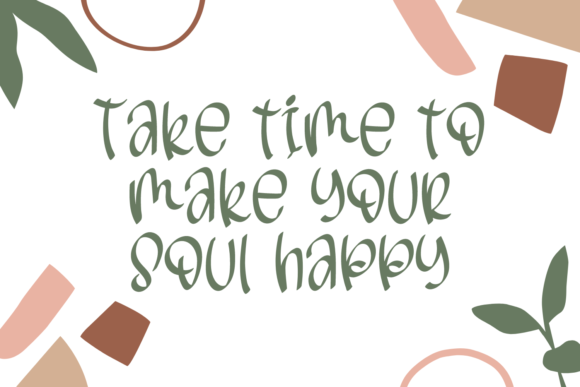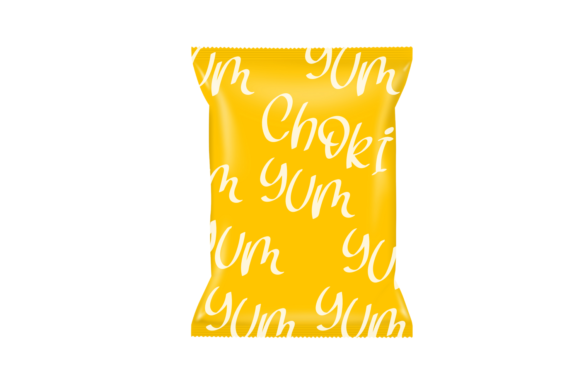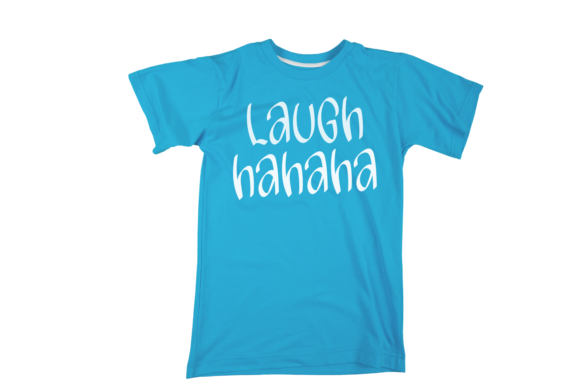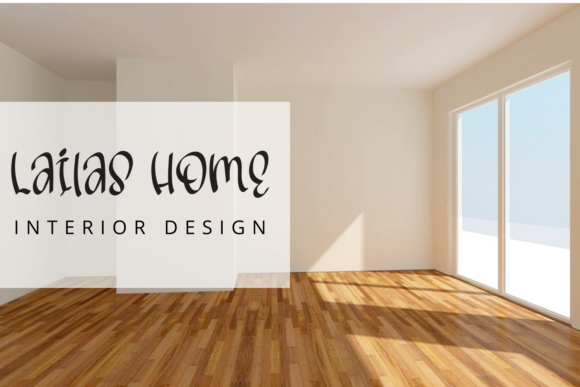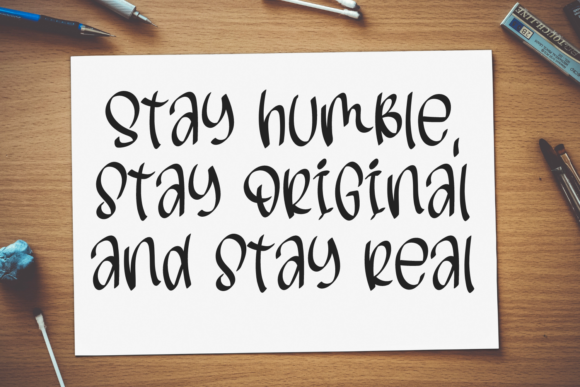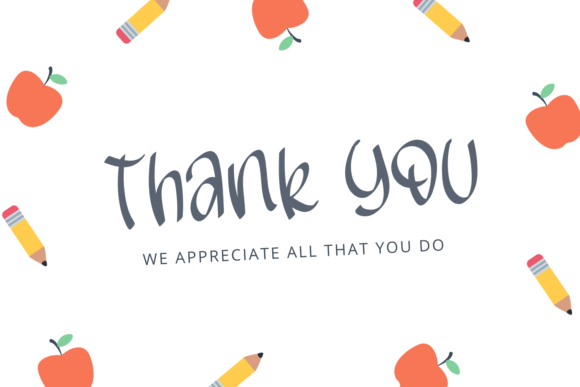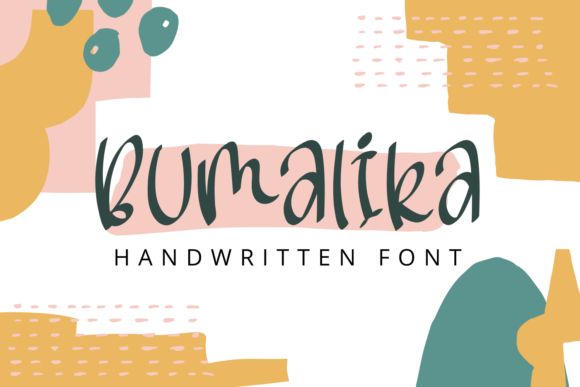
Bumalika Font: The Cute and Unique Handwritten Font for Your Creative Projects
Are you a designer or crafter looking for a font that can add a touch of personality to your creative projects? Look no further than Bumalika Font! This cute and unique handwritten font is perfect for a wide range of applications, from branding and product packaging to invitations, quotes, t-shirts, labels, posters, and logos.
What Makes Bumalika Font So Special?
Bumalika Font is a friendly and cartoon-like font that is sure to capture the attention of your audience. Its unique and playful design makes it stand out from more traditional fonts, and its versatility ensures that it can be used in a variety of contexts. Whether you’re looking to create a fun and whimsical brand identity or simply want to add a personal touch to your designs, Bumalika Font is the perfect choice.
Characteristics of Bumalika Font
So, what are some of the key characteristics of Bumalika Font that make it so special? Here are just a few:
- Cute and playful design: Bumalika Font has a unique and playful design that is sure to bring a smile to your audience’s face.
- Handwritten feel: This font has a friendly, handwritten feel that makes it perfect for creating personal and relatable designs.
- Cartoon-like style: Bumalika Font has a cartoon-like style that makes it perfect for designs that require a touch of whimsy and fun.
- Versatile: This font can be used in a wide range of contexts, from branding and product packaging to invitations and quotes.
Uses for Bumalika Font
So, what can you use Bumalika Font for? The possibilities are endless! Here are just a few ideas to get you started:
- Branding: Use Bumalika Font to create a fun and unique brand identity that sets you apart from the competition.
- Product packaging: Add a personal touch to your product packaging with Bumalika Font.
- Invitations: Create custom invitations for parties, weddings, and other special events with Bumalika Font.
- Quotes: Use Bumalika Font to create inspiring and motivational quotes that are sure to resonate with your audience.
- T-shirts: Create custom t-shirts with Bumalika Font for a fun and unique design.
- Labels: Use Bumalika Font to create custom labels for your products or gifts.
- Posters: Create eye-catching posters with Bumalika Font for your business or event.
- Logos: Use Bumalika Font to create a unique and memorable logo for your business.
Why Choose Bumalika Font?
So, why should you choose Bumalika Font for your creative projects? Here are just a few reasons:
- Unique design: Bumalika Font has a unique and playful design that is sure to stand out from more traditional fonts.
- Versatility: This font can be used in a wide range of contexts, making it a great addition to any designer’s toolkit.
- Easy to read: Despite its playful design, Bumalika Font is easy to read and understand, making it perfect for use in a variety of applications.
- Customizable: Bumalika Font can be customized to fit your specific design needs, making it a great choice for designers who want to create unique and personalized designs.
In conclusion, Bumalika Font is a cute and unique handwritten font that is perfect for designers and crafters who want to add a touch of personality to their creative projects. With its friendly and cartoon-like design, versatility, and ease of use, Bumalika Font is a great choice for a wide range of applications. Whether you’re looking to create a fun and whimsical brand identity or simply want to add a personal touch to your designs, Bumalika Font is the perfect choice.